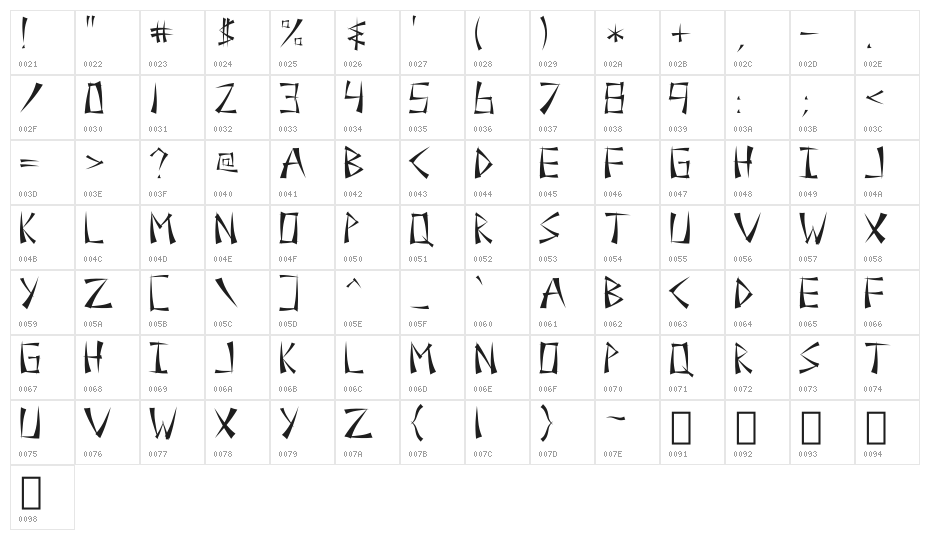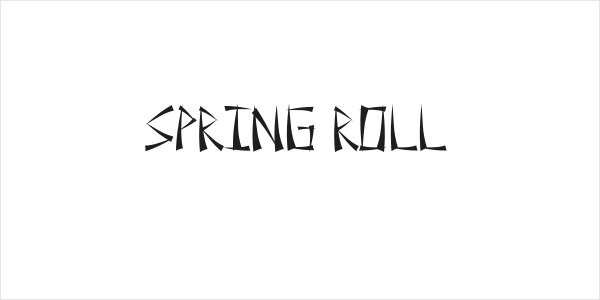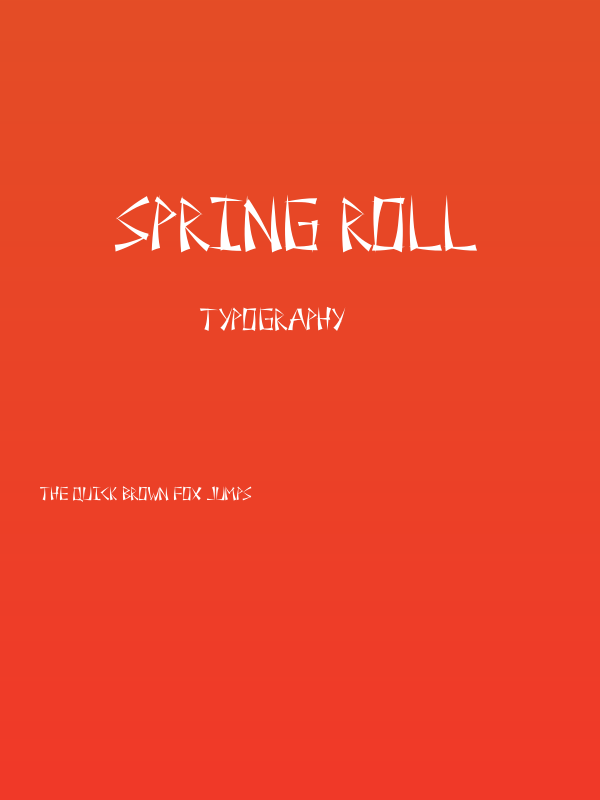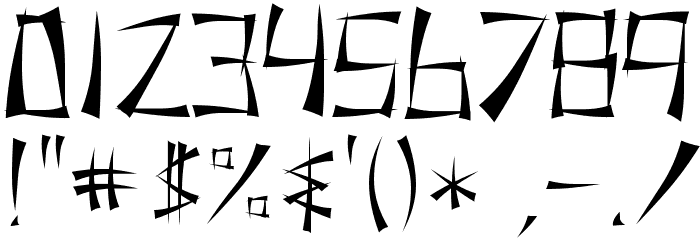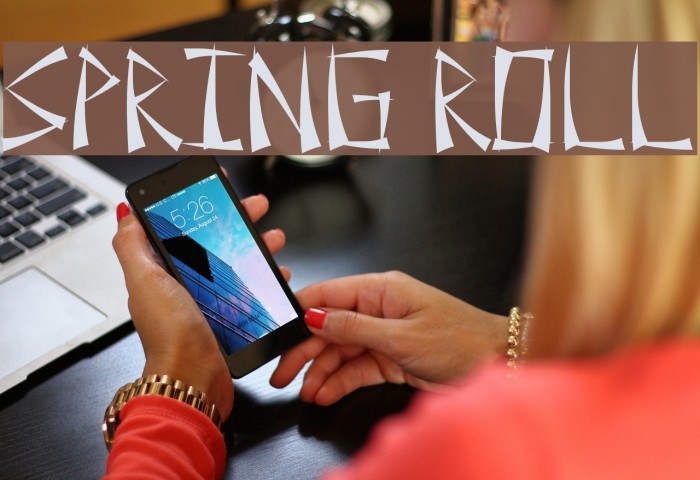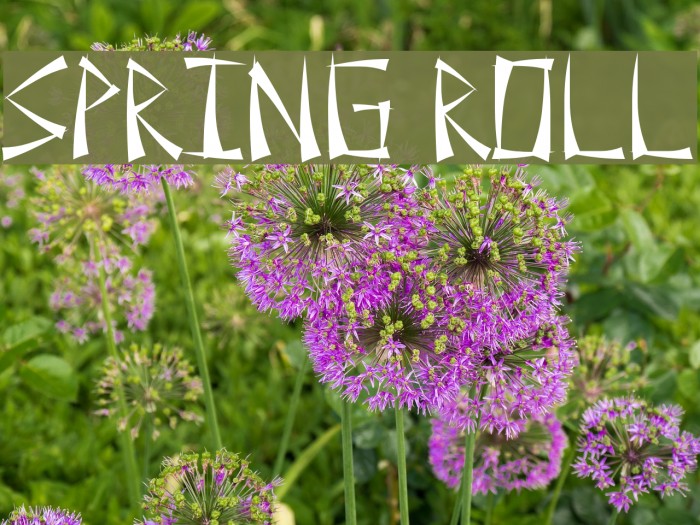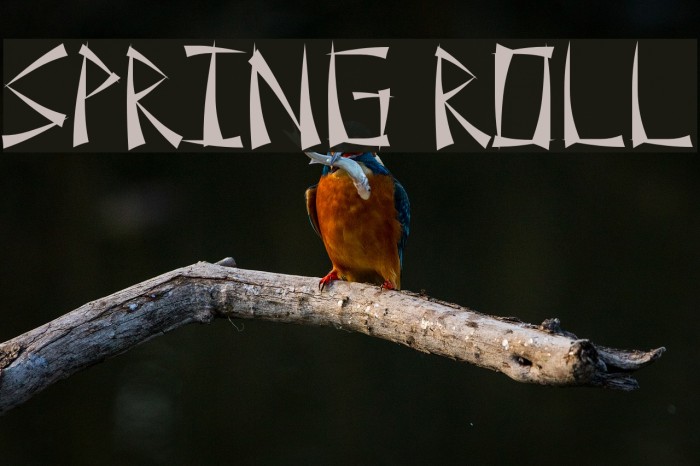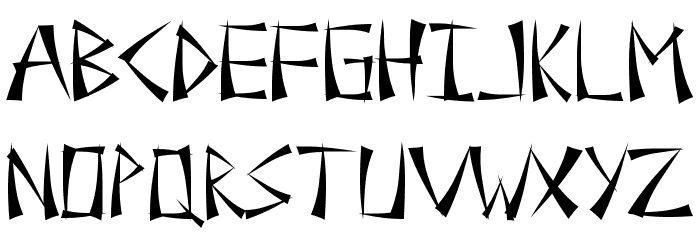
Spring Roll Font
Spring Roll Description
This font features a dynamic and edgy design, characterized by sharp angles and irregular strokes that give it a distinctly modern and rebellious feel. The uppercase and lowercase letters maintain a consistent style, with each character exhibiting unique, jagged edges that create a sense of movement and energy. The numbers and special characters follow the same aesthetic, ensuring a cohesive look across all elements. This font's bold and unconventional appearance makes it stand out, perfect for projects that require a strong visual impact.
| Use Case | Logos, Posters, Headlines |
| Proposed Projects | Ideal for music album covers, skateboarding brands, graffiti art, and edgy fashion labels. |